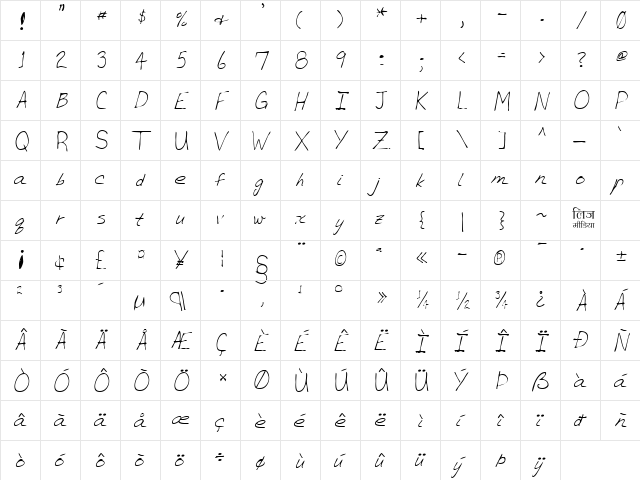
LEHN036 Regular
Design Context for LEHN036 Typeface
LEHN036 offers clean, dependable letterforms without strong stylistic allegiance, making it a practical choice for designers who need flexibility.